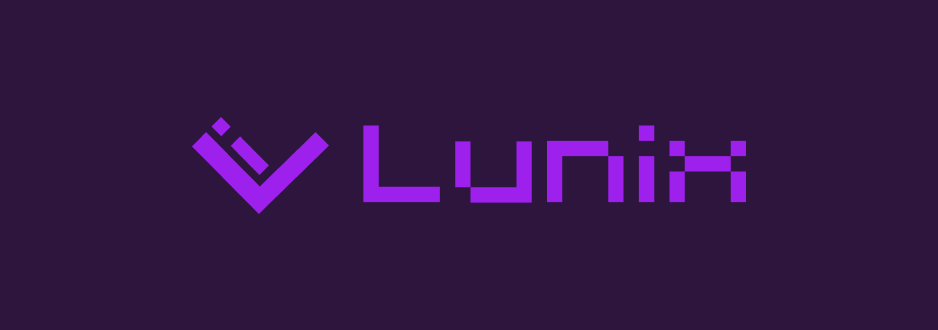
A font that is stylized a little differently... and smaller too... Y'know, at least you don't gotta see the vanilla font, right?
This is a banner, of course...
yo this might look terrible but it gets the job done